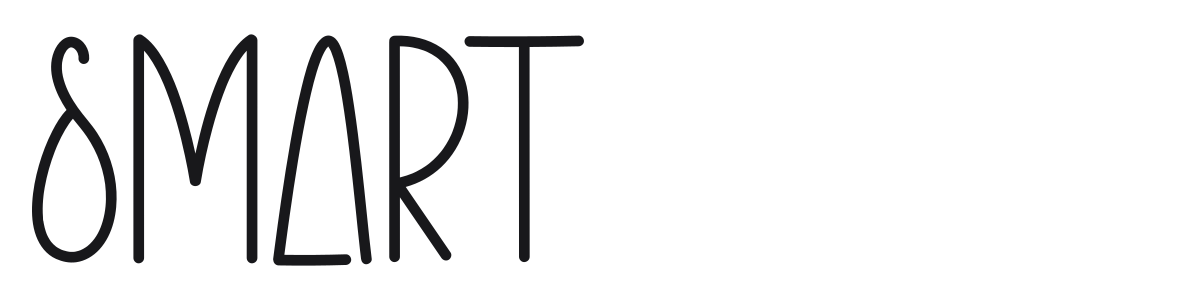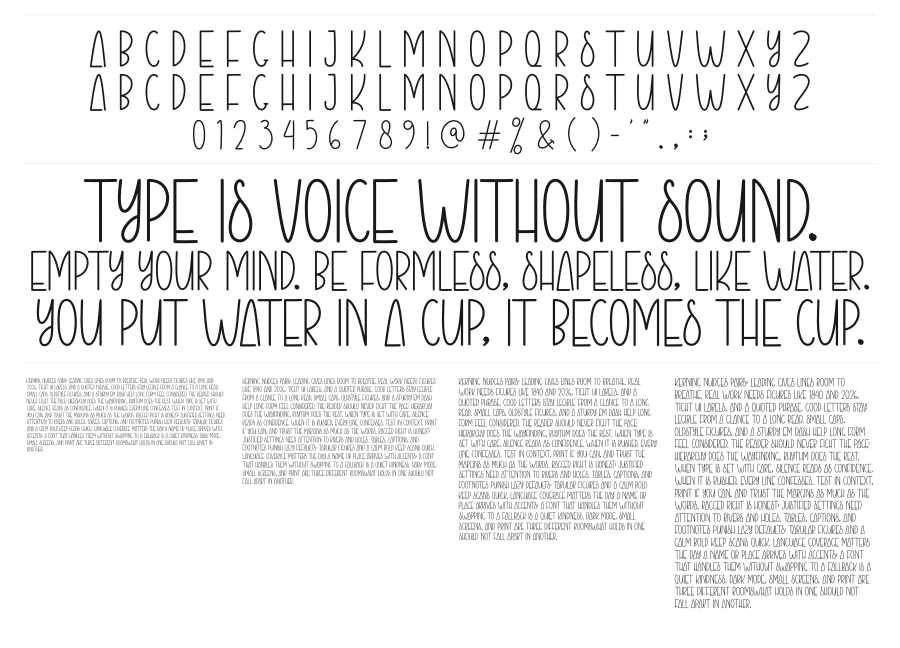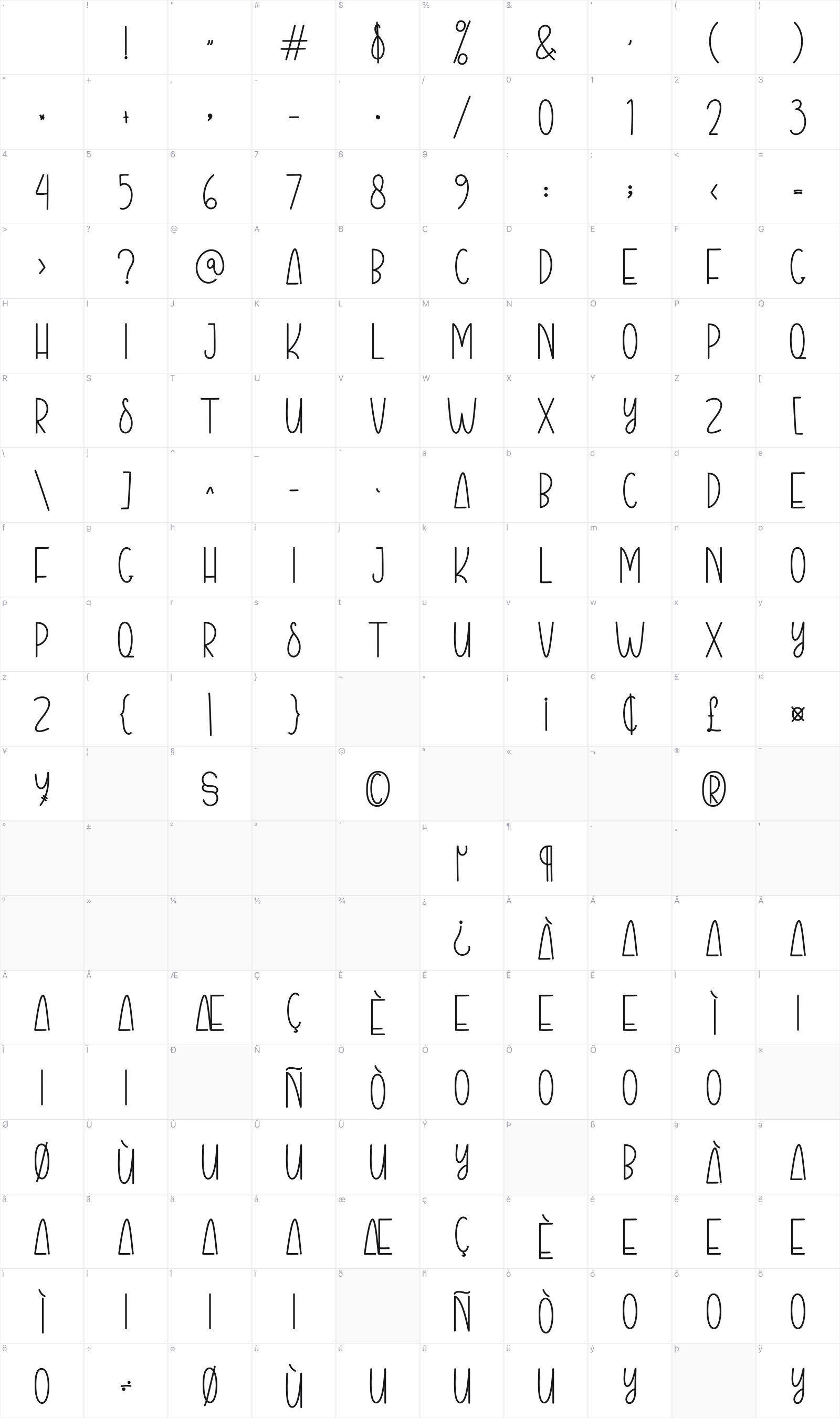
Smart
Smart is a condensed hand-drawn sans with tall, narrow characters and a charmingly irregular quality. Flat-topped arches and slightly inward-curved terminals give it a handcrafted, almost doodled feel without losing legibility at display sizes. It sits comfortably between a geometric sans and a casual script, which is why it works well on wedding stationery, packaging, and social media graphics.